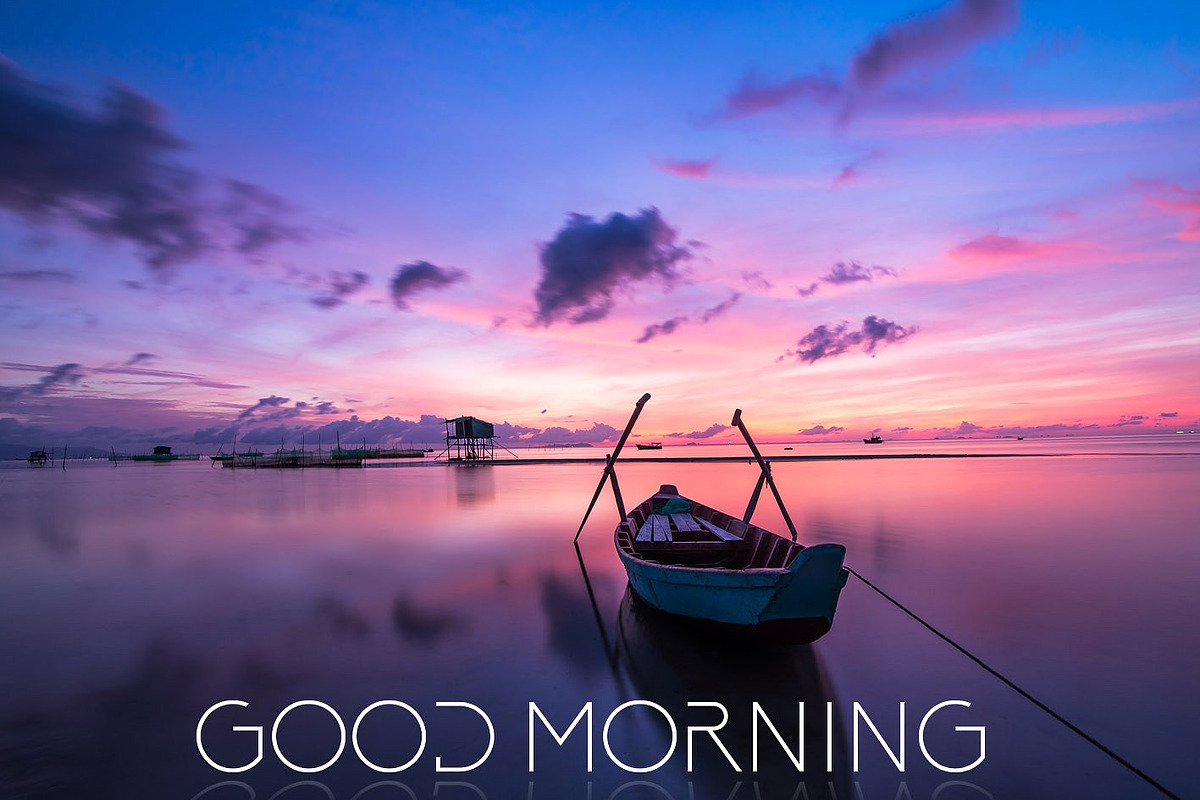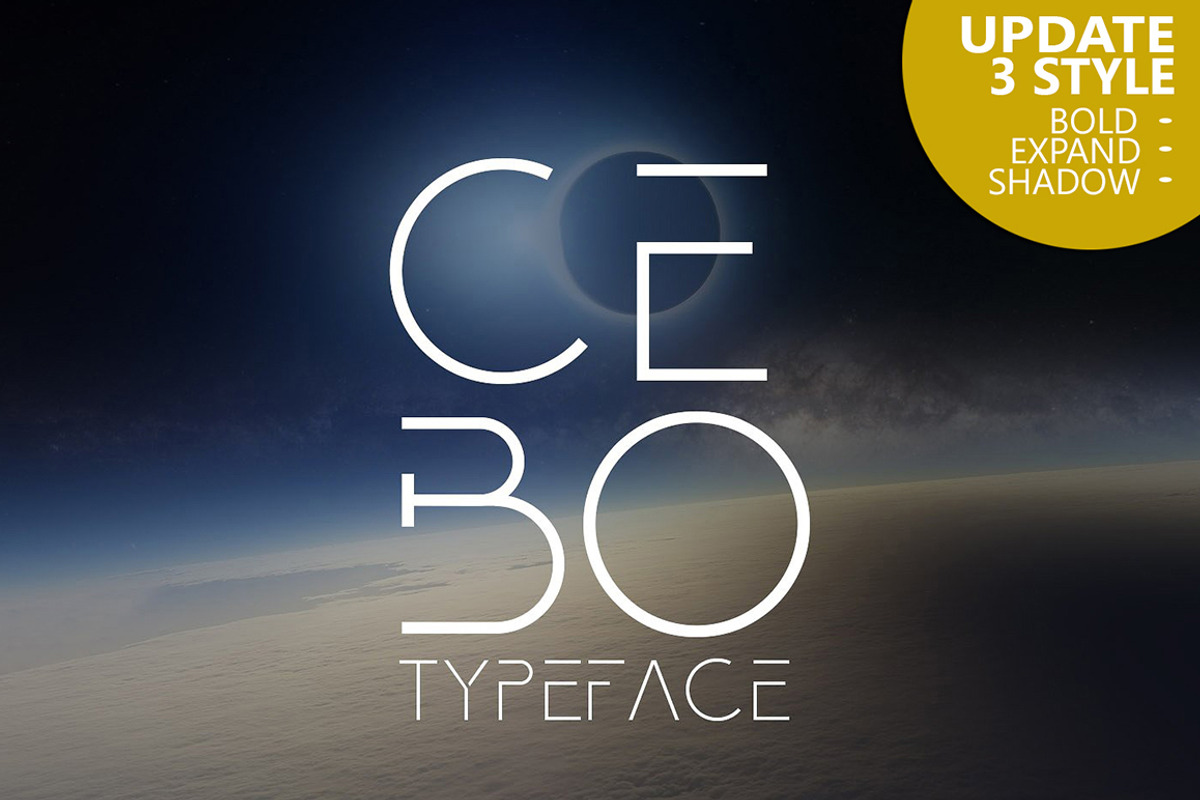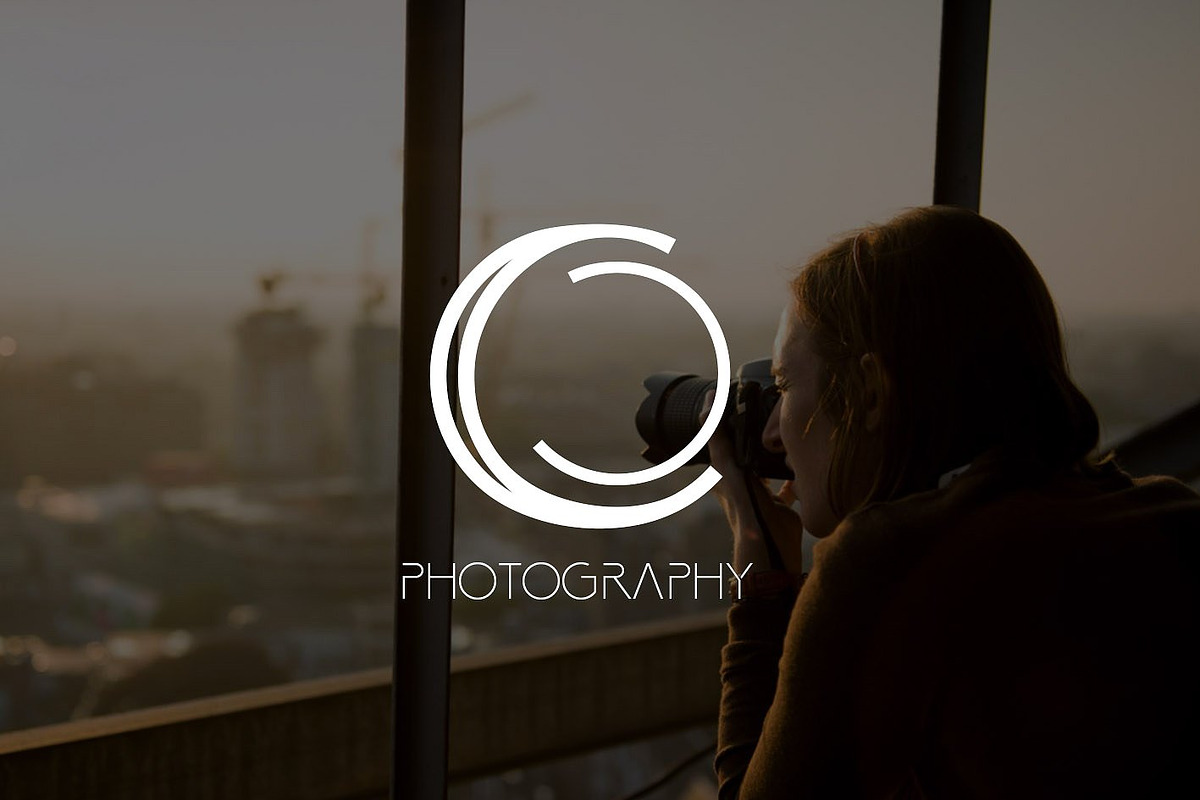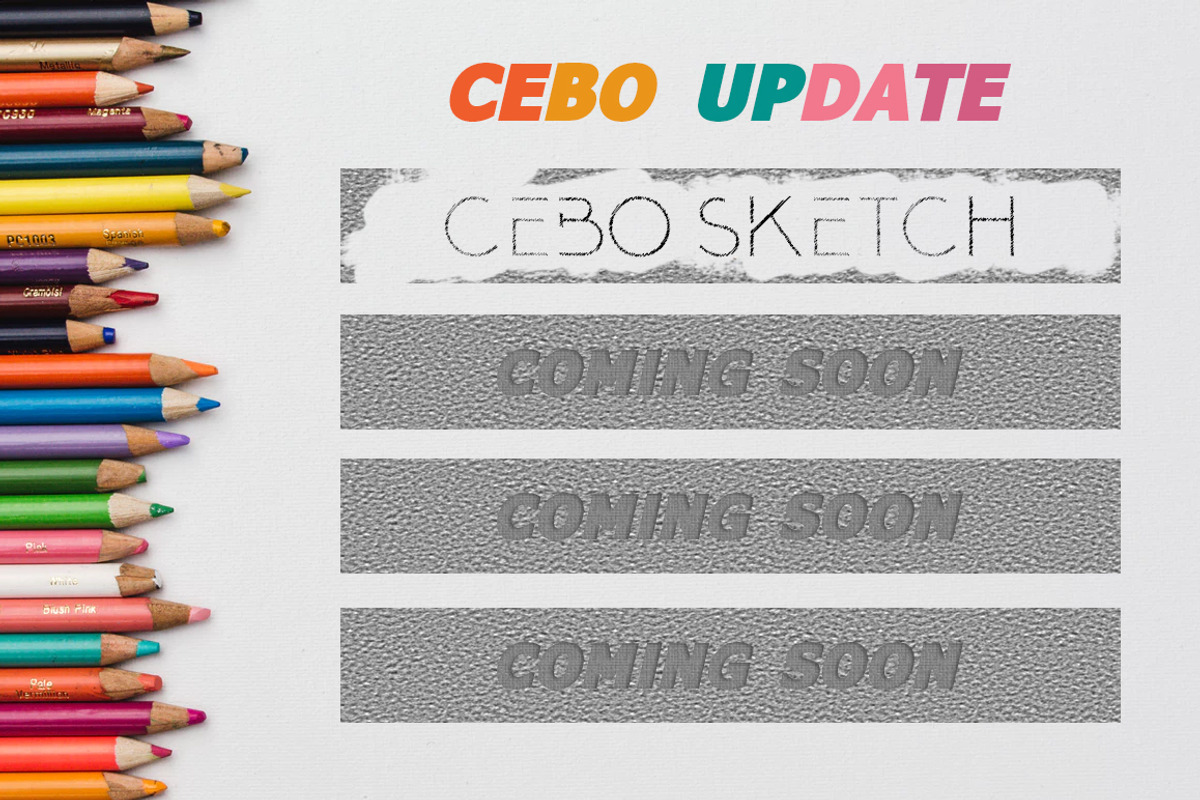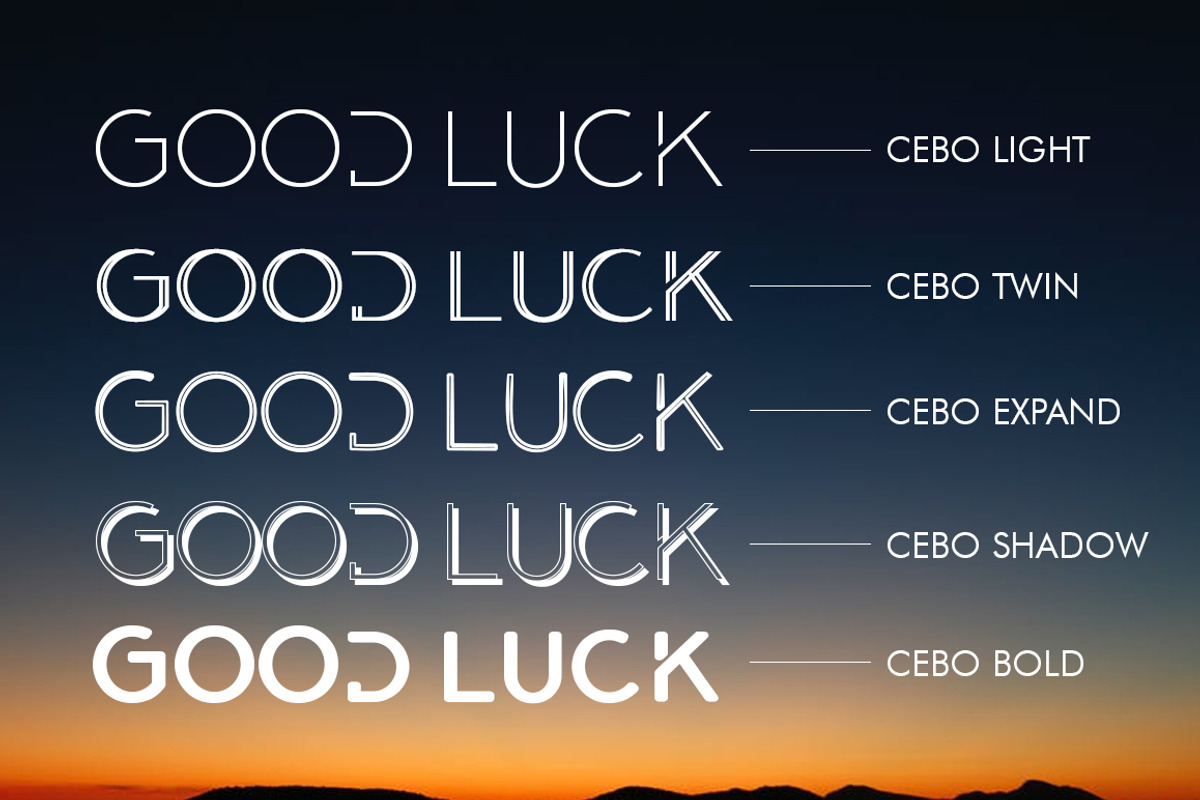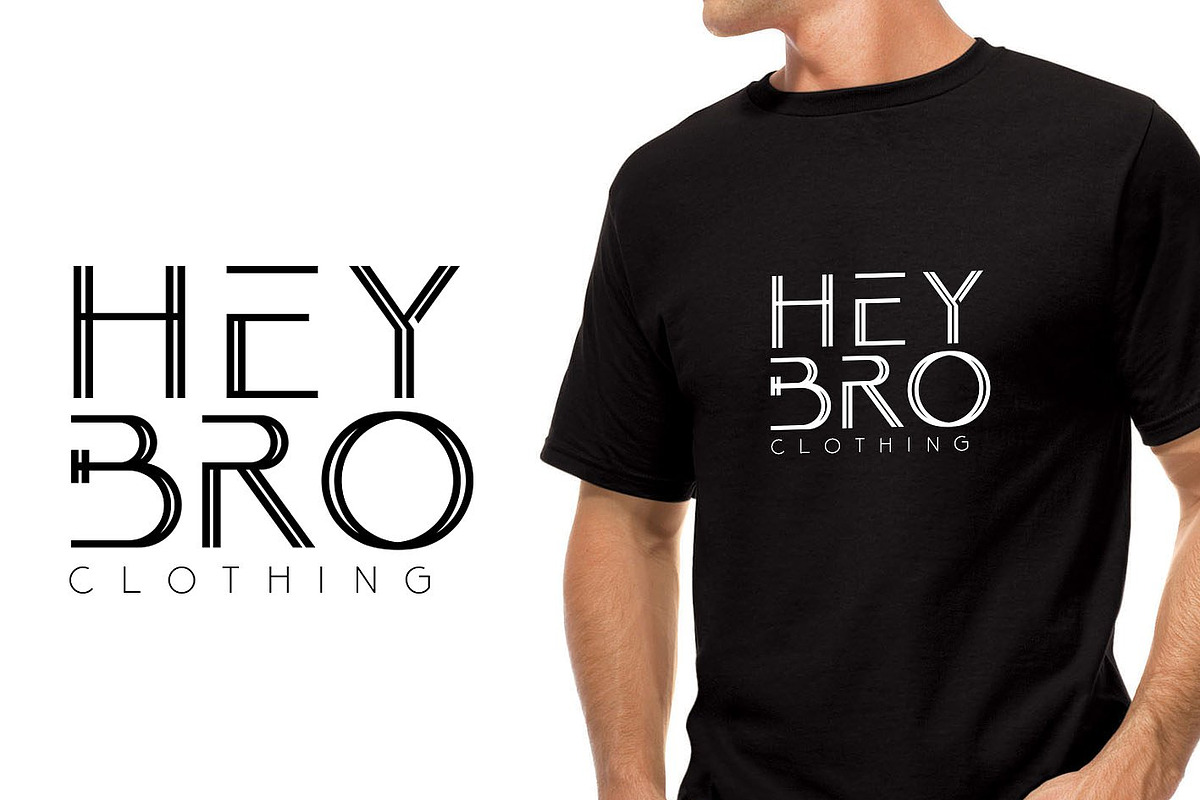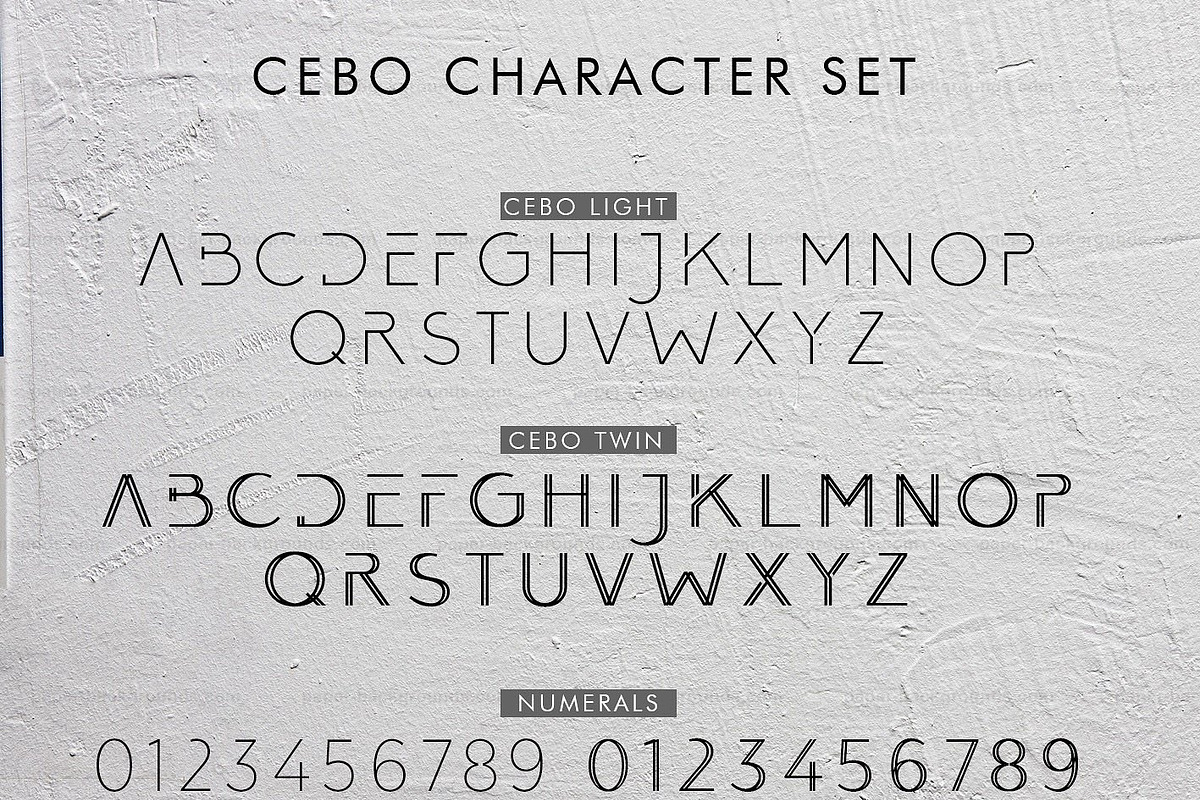
Cebo (6 Font)
Cebo (6 Font) by khurasan is a font selected for branding, posters, packaging, typography.
Why Cebo (6 Font) is worth a look
Cebo (6 Font) by khurasan fits naturally into Branding, posters, packaging, typography.